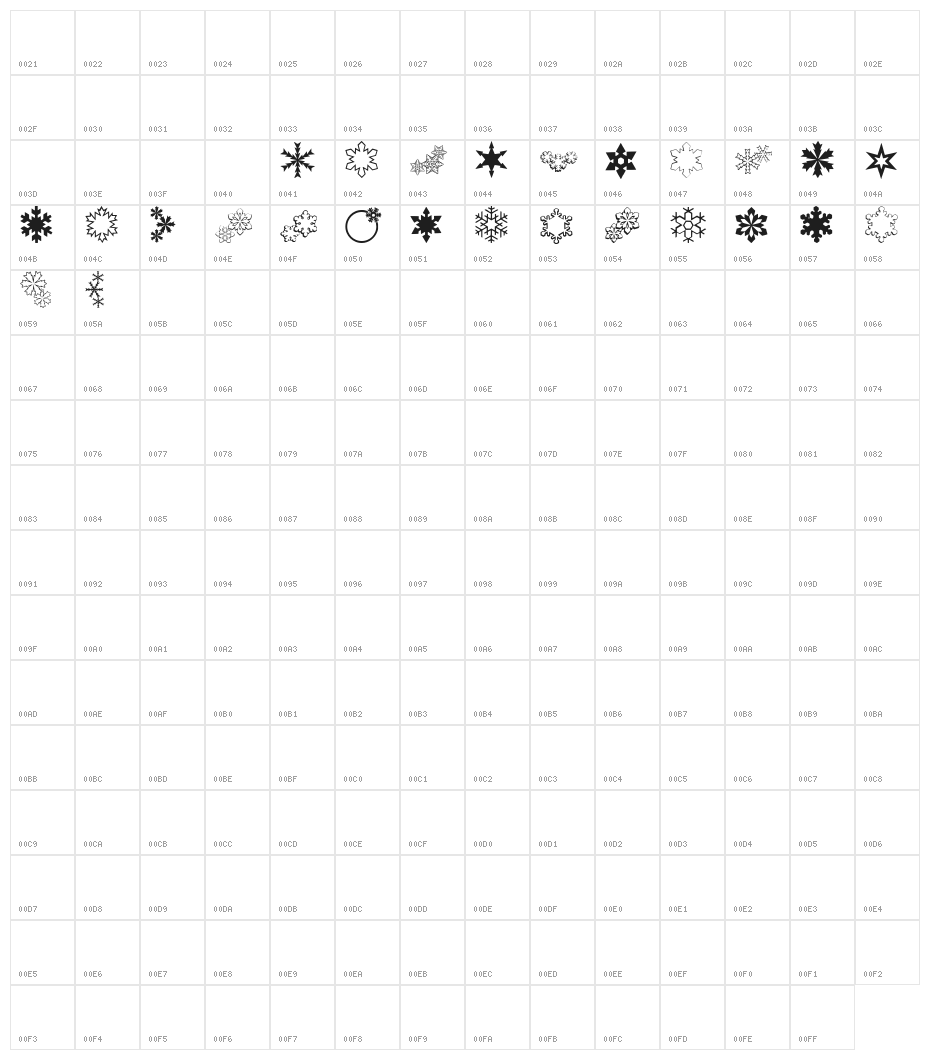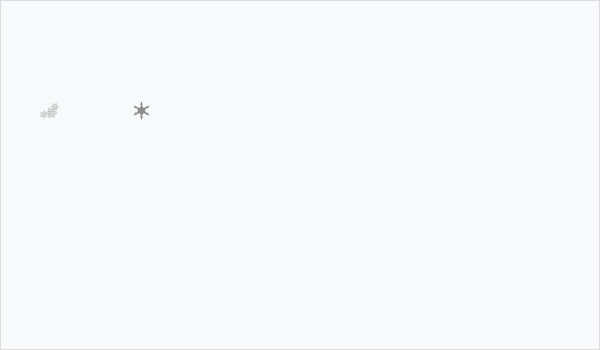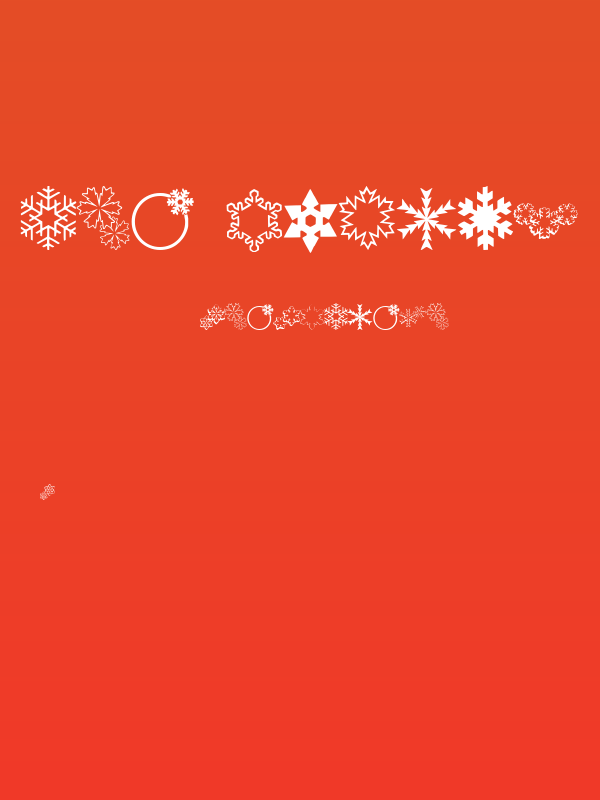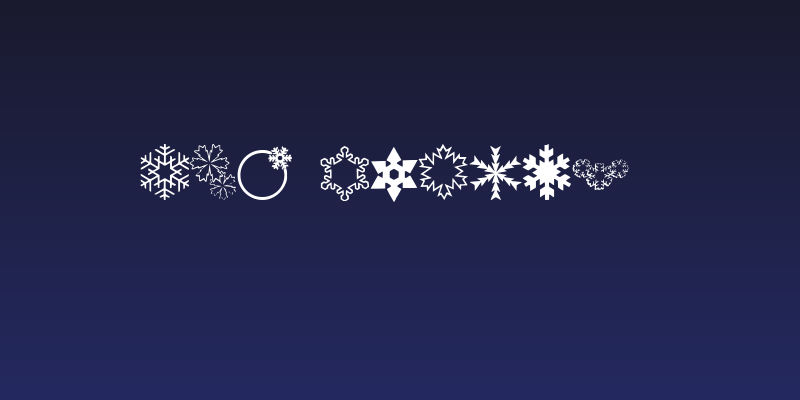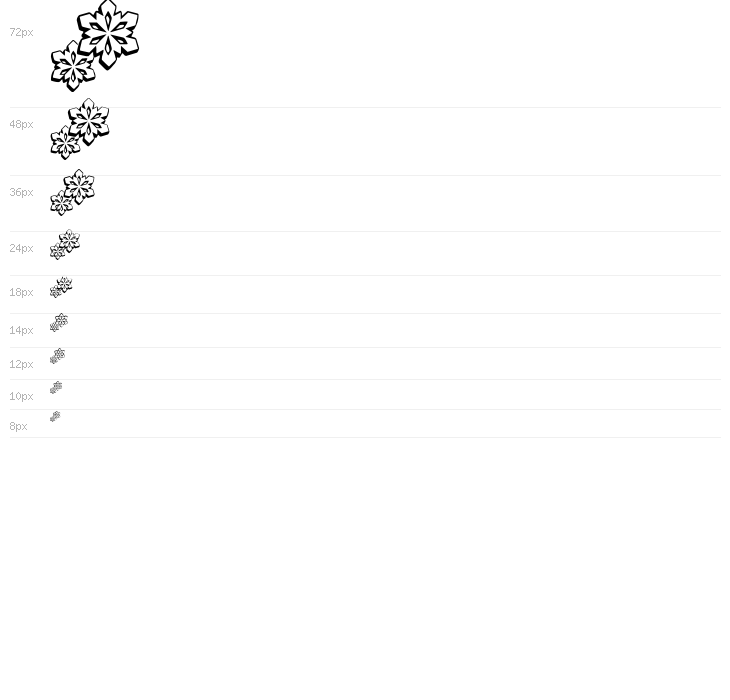
ryp_sflake4 Font
A decorative font composed entirely of various snowflake and star shapes, featuring both solid and outlined forms with intricate and simple designs. The glyphs are highly stylized and ornamental, with no traditional letterforms present.
| Overall Style | Decorative, Seasonal |
| Use Case | Decorative elements, Borders, Themed graphics |
| Proposed Projects | Holiday cards, winter-themed invitations, seasonal posters, decorative borders, digital scrapbooking. |